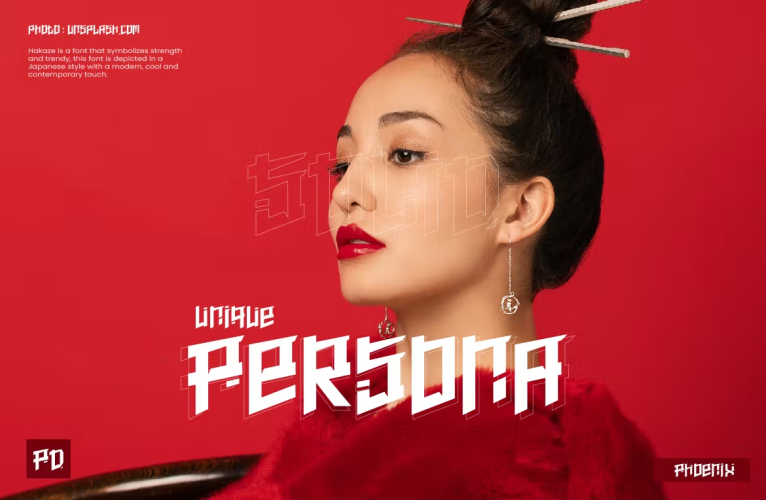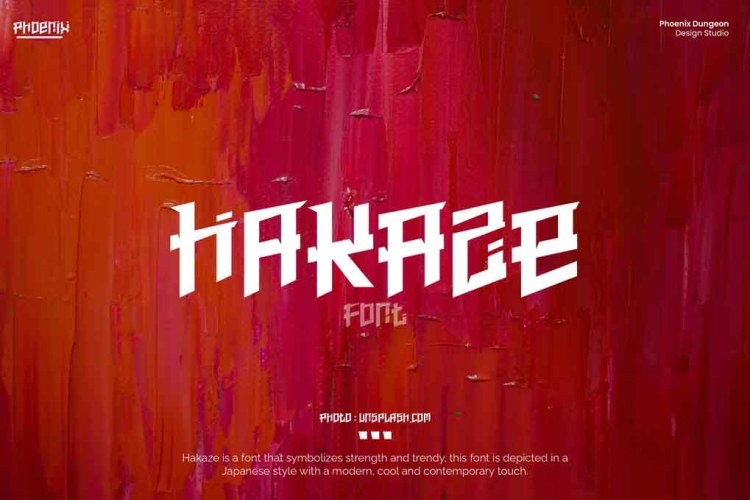
Hakaze Font
Hakaze is a font that symbolizes strength and trendy, this font is depicted in a Japanese style with a modern, cool, and contemporary touch.
Where Hakaze Font works best
Seasonal campaigns
Hakaze Font gives a holiday or themed promotion its own look without redrawing anything; use it for the headline only.
Party and family invitations
Decorative letters set the mood before the text is read. Pair Hakaze Font with a plain sans for the practical details.
Game and video titles
Themed lettering sells the world of a game or a channel in one frame.
What kind of work does Hakaze Font suit?
It sits in the Decorative Fonts group and reads as contemporary, decorative, decorative fonts, modern. That makes it a candidate wherever those qualities help: headings, packaging, social graphics and brand work. Set it at the size you plan to use before deciding.